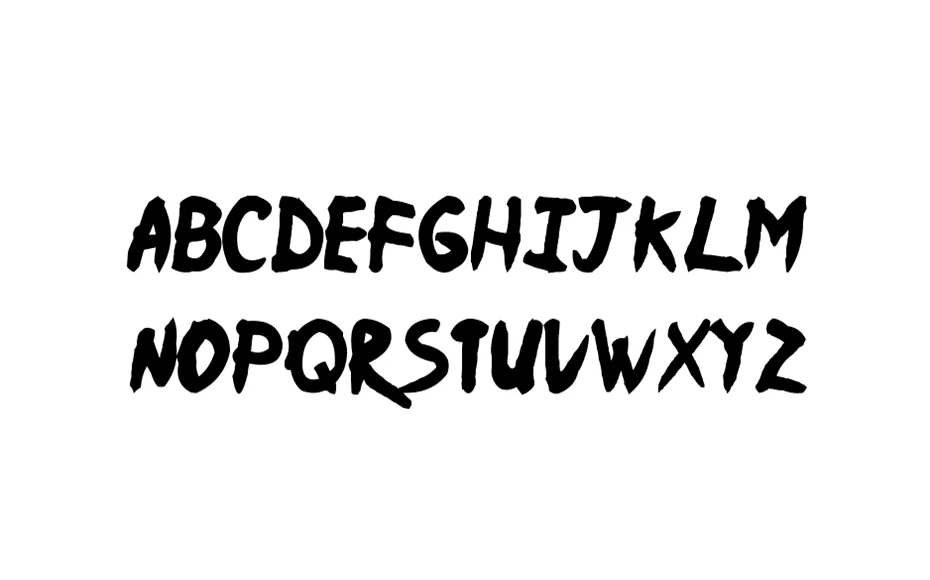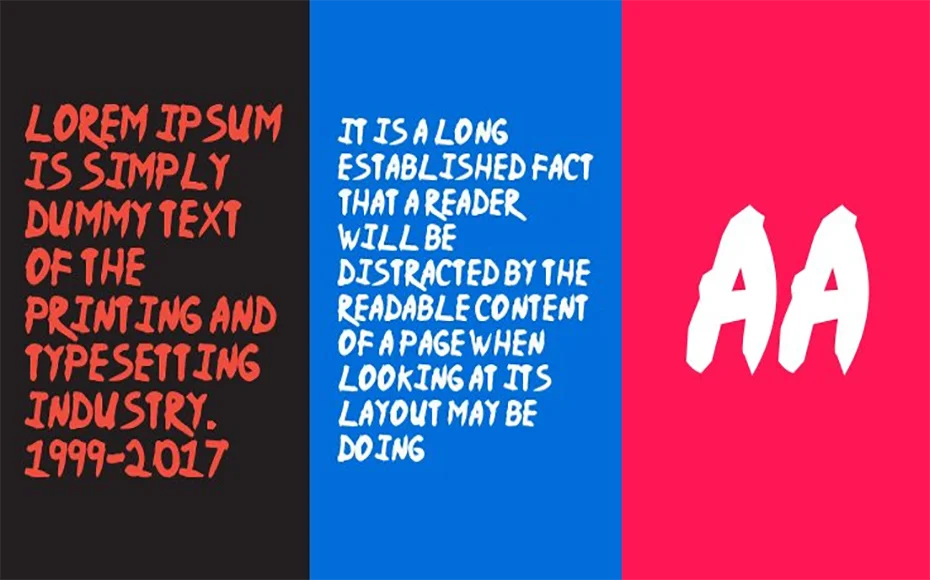
Naruto Font is a very unique stylish typeface. You can use this script font to design unique titles for posters, headings for flyers, and even headers.
Basically, it depends entirely on the Japanese comic series Naruto Manga. It becomes one of the most manga series of all time.
It was released after 1997 and was serialized on the booking form in 1999. Therefore, a total of 72 volumes of this series have now been released not only in Japan but also in the United States.
In addition, the comics sold a total of 235 million copies in 35 international countries. So, here we want to give the font family which is very similar to this series. Its name is Ninja Naruto.
Style: | Script, Brush, Typeface |
And then start working with it in your ongoing projects. With the help of this font, you can create movie posters, comic books, book covers, greetings, game titles, game graphics, product designs, or birthday card layouts.
Ninja Naruto Font possesses the Truetype file format it contains 62 characters. Furthermore, the bold immature laters are designed with a brush, which adds to the beauty of this font.